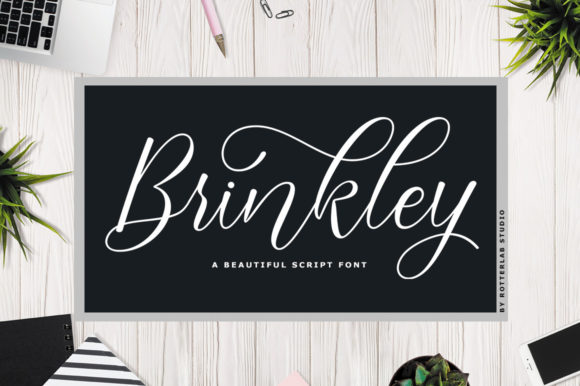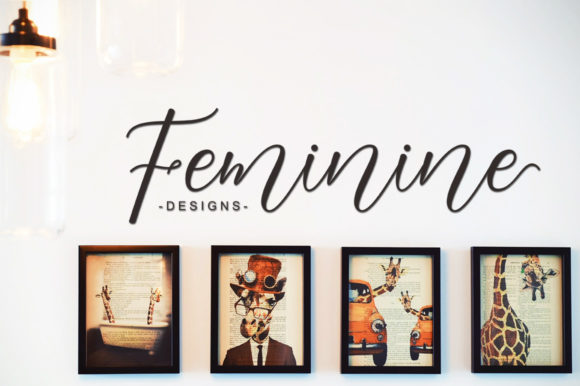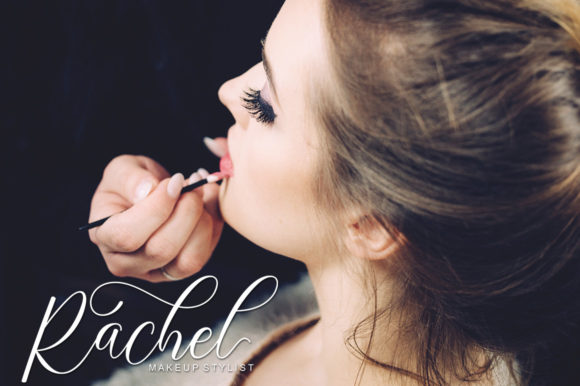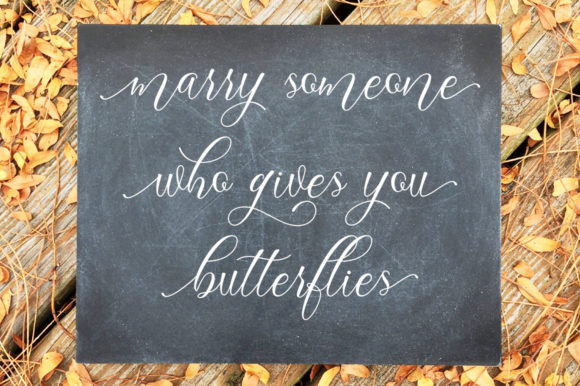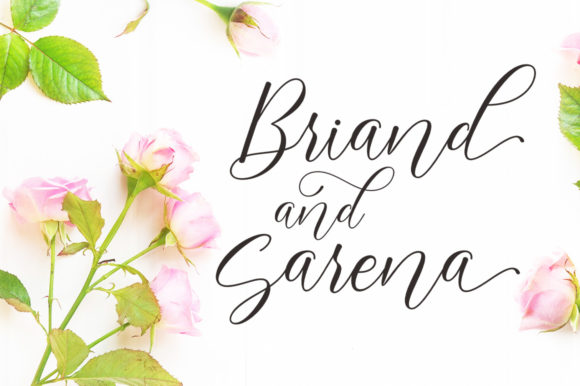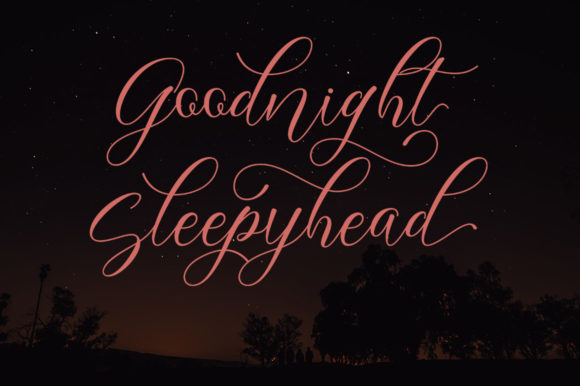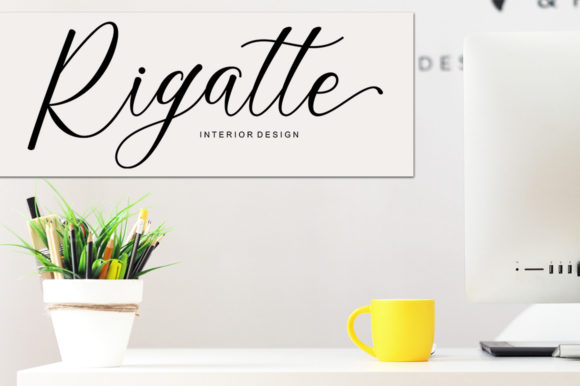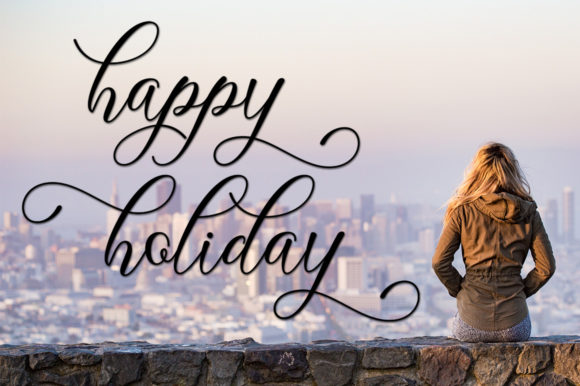
Brinkley Font
About Brinkley Font
Brinkley Script is a lovely calligraphic font with dynamic and unique swashes. It will add a personal and romantic touch to any design idea.